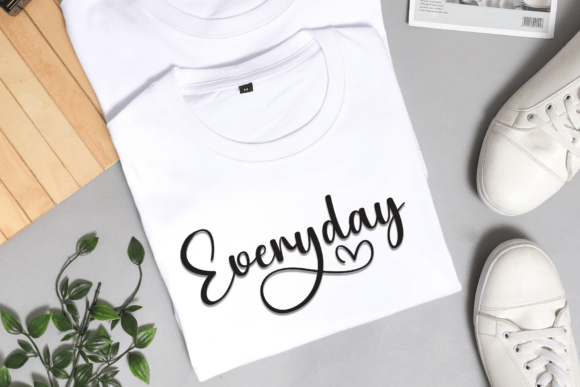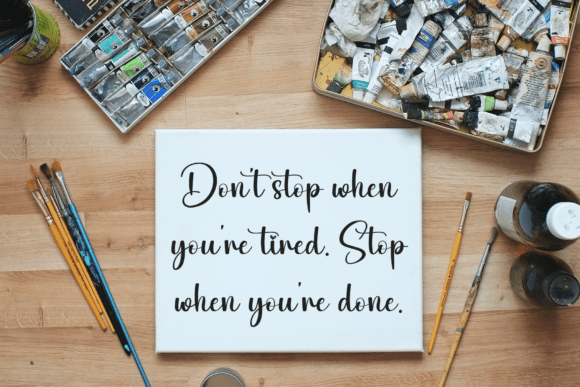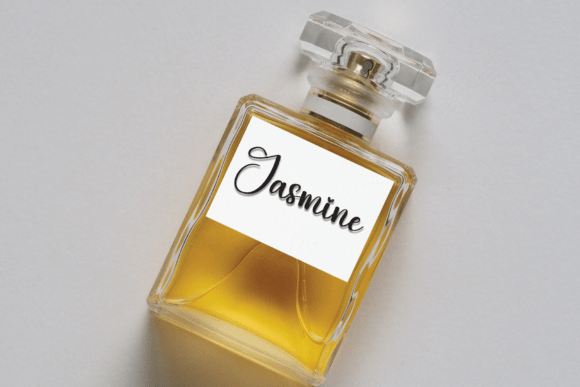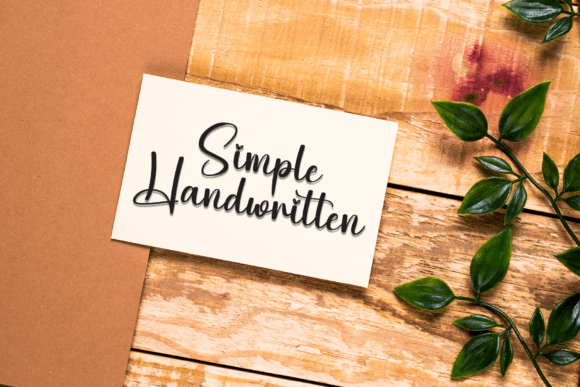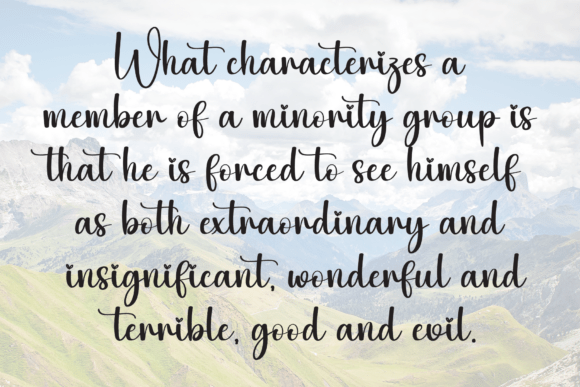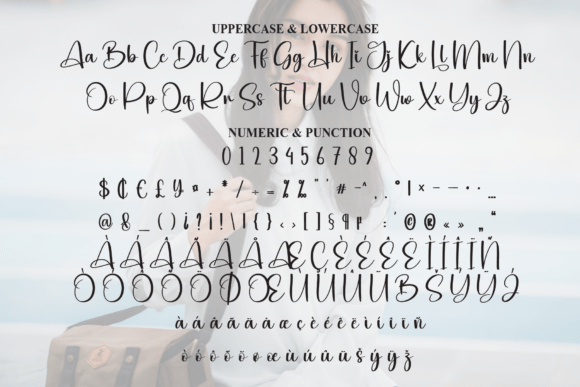
Add a Touch of Sophistication to Your Designs with Cutegirl Font
Are you looking for a font that can elevate your designs to the next level? Do you want to create romantic and luxurious visuals that leave a lasting impression? Look no further than the Cutegirl Font, an elegant script font that is perfect for designers and crafters alike. With its beautiful beginning and ending swashes, stylish curves, and decorative alternates, this font is sure to add a touch of sophistication to any design.
The Perfect Font for Romantic and Luxurious Designs
The Cutegirl Font is a graceful, flowing typeface that is specifically designed to create romantic and luxurious visuals. Its elegant script style is perfect for wedding invitations, branding projects, social media graphics, and handwritten quotes. Whether you’re a designer looking to create stunning visuals for your clients or a crafter looking to add a personal touch to your DIY projects, this font is sure to impress.
Beautiful Beginning and Ending Swashes
One of the standout features of the Cutegirl Font is its beautiful beginning and ending swashes. These swashes add an extra flourish to your designs, making every word look effortlessly refined and custom-made. With a range of swashes to choose from, you can customize your designs to fit your unique style and aesthetic.
Stylish Curves and Decorative Alternates
The Cutegirl Font also features stylish curves and decorative alternates, which make every word look sophisticated and elegant. The font’s curves are smooth and flowing, creating a beautiful visual effect that is sure to capture the eye. The decorative alternates add an extra layer of customization to your designs, allowing you to create unique and eye-catching visuals.
Perfect for a Range of Design Projects
The Cutegirl Font is perfect for a range of design projects, including:
- Wedding invitations: Add a touch of romance and elegance to your wedding invitations with this beautiful script font.
- Branding projects: Create luxurious and sophisticated branding materials with the Cutegirl Font.
- Social media graphics: Elevate your social media graphics with this elegant script font.
- Handwritten quotes: Add a personal touch to your handwritten quotes with the Cutegirl Font.
- Elegant and sophisticated: This font is perfect for creating romantic and luxurious visuals.
- Customizable: With a range of swashes and decorative alternates, you can customize your designs to fit your unique style and aesthetic.
In conclusion, the Cutegirl Font is a beautiful and elegant script font that is perfect for designers and crafters looking to add a touch of sophistication to their designs. With its beautiful beginning and ending swashes, stylish curves, and decorative alternates, this font is sure to create romantic and luxurious visuals that leave a lasting impression. Whether you’re creating wedding invitations, branding projects, social media graphics, or handwritten quotes, the Cutegirl Font is the perfect choice.